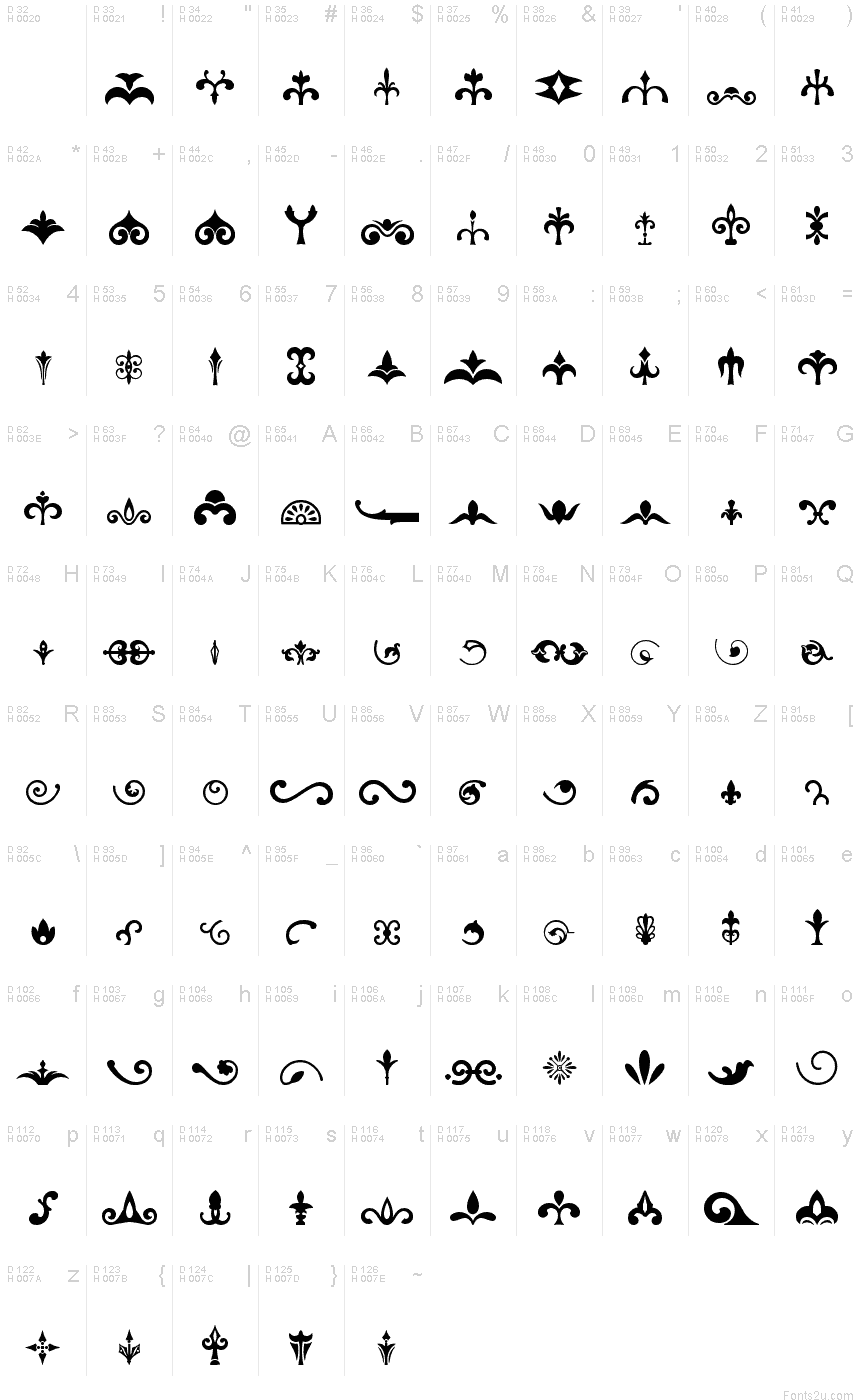
Ornaments is a free decorative symbol font built around scrolling flourishes and symmetrical emblems. Its shapes range from compact floral marks to long, ribbon-like dividers, with smooth curves and pointed teardrop details appearing throughout. Some forms feel formal, others almost whimsical.
Botanical ornament and vintage decoration make this collection useful for invitations, packaging, book covers, and event posters, where the symbols can frame names, divide sections, or finish a border. The repeated petals, crowns, and curling stems can also become recognizable emblems for a boutique, confectionery label, or period-inspired product line.